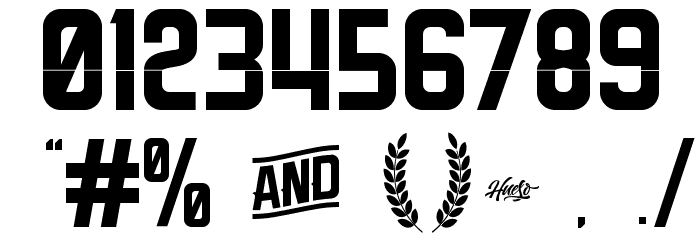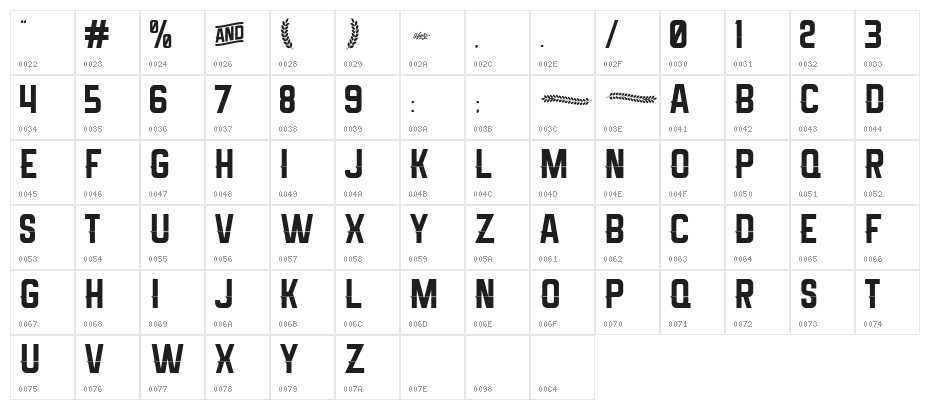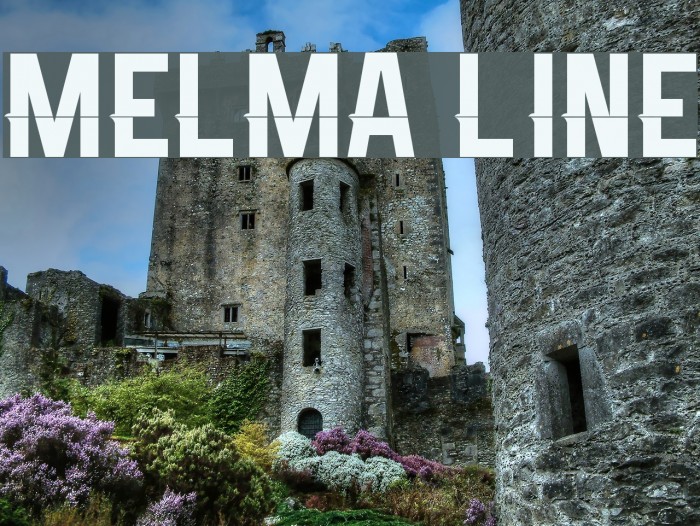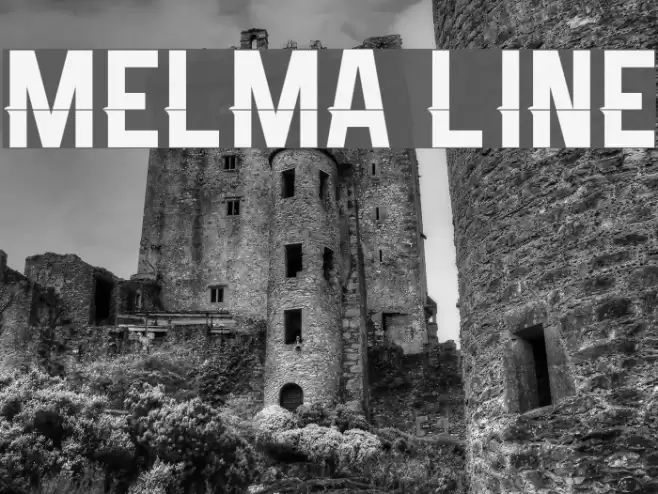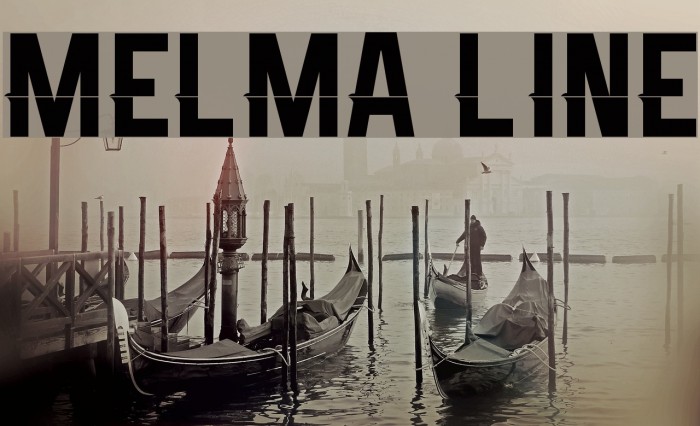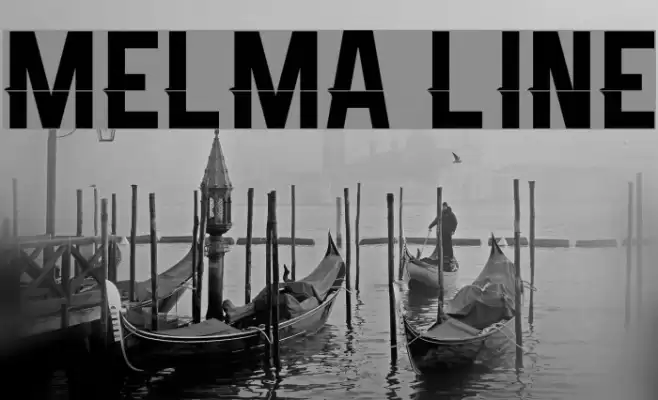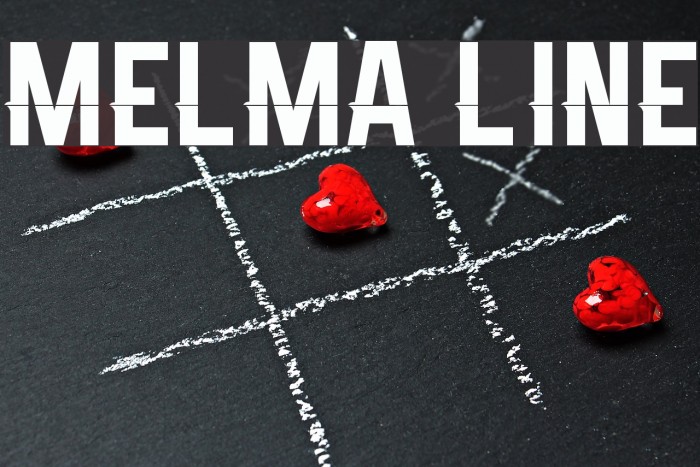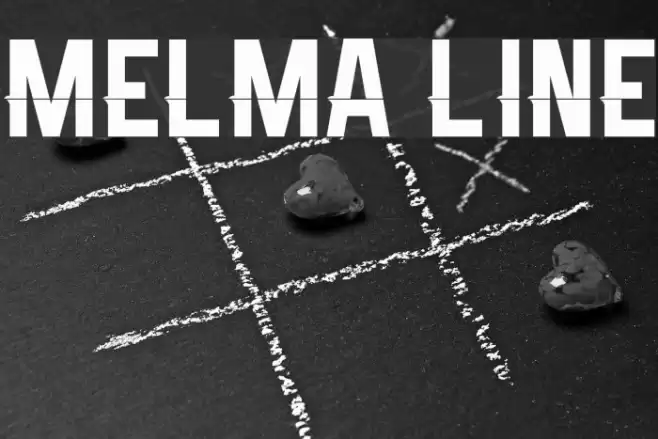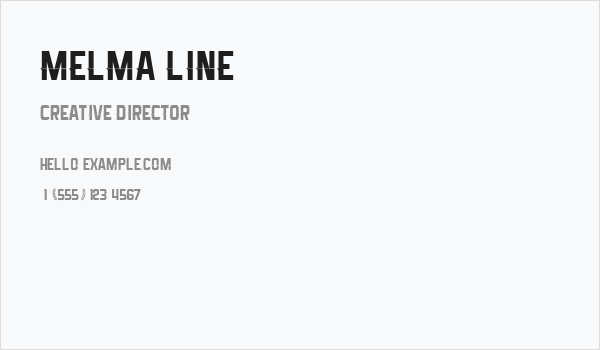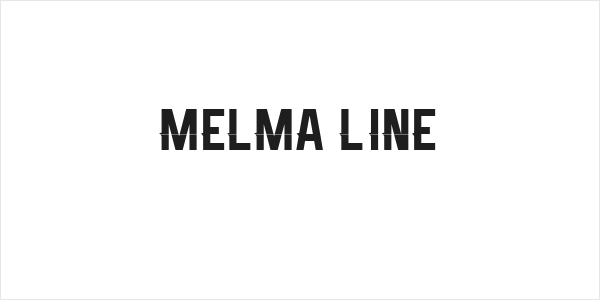
Melma Line Font
Melma Line Description
This font features a bold and striking design with a distinctive horizontal line cutting through each character, creating a unique visual effect. The uppercase letters are strong and geometric, with sharp angles and a modern aesthetic. The numerals are similarly bold, maintaining the same horizontal line motif. Special characters and punctuation are included, adding versatility to the font. The overall style is contemporary and eye-catching, making it suitable for projects that require a strong visual impact.
| Proposed Projects | Ideal for branding, posters, headlines, and any design that needs a bold, modern statement. |